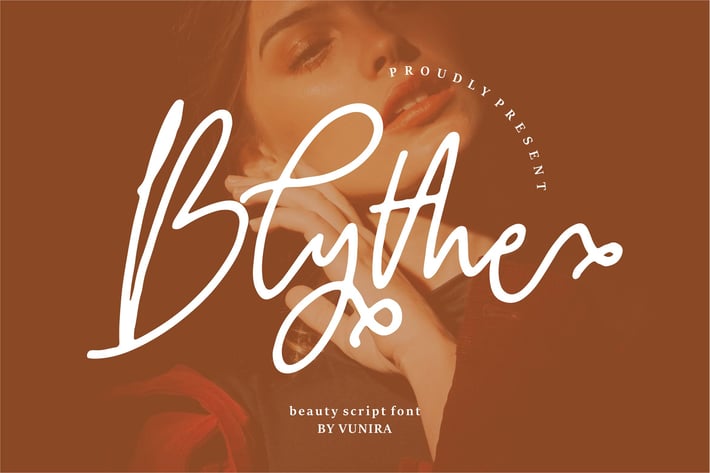
Blythe | Beauty Script Font
Blythe | Beauty Script Font with a calligraphy style, So beautiful on invitation like greeting cards, branding materials, business cards, quotes, posters, and more!